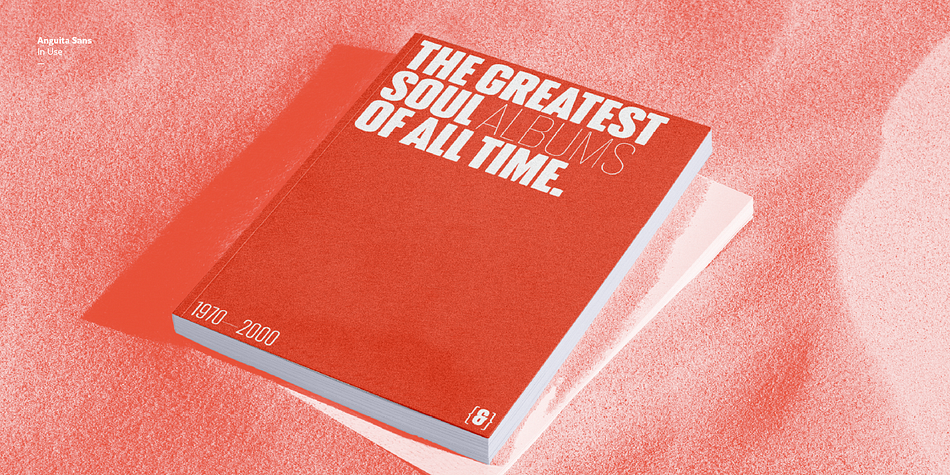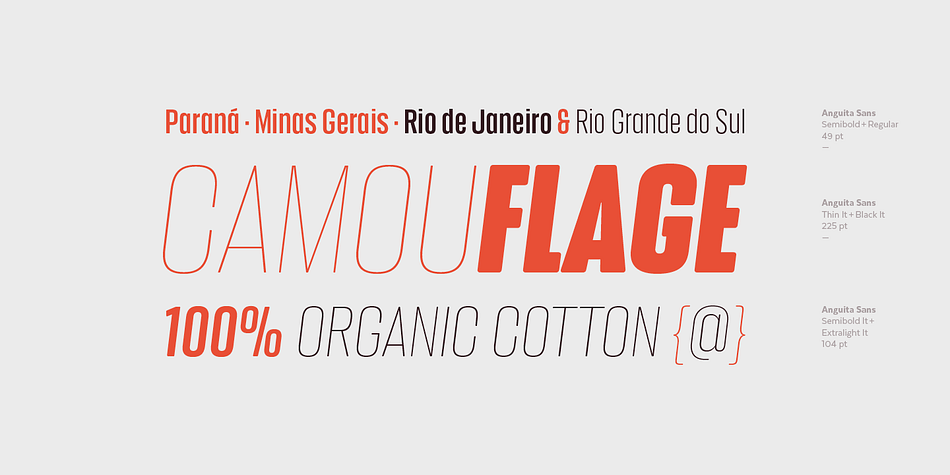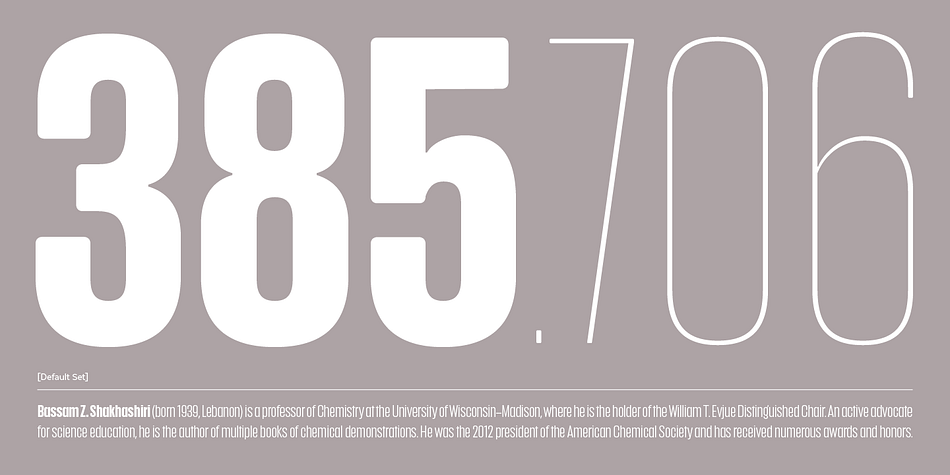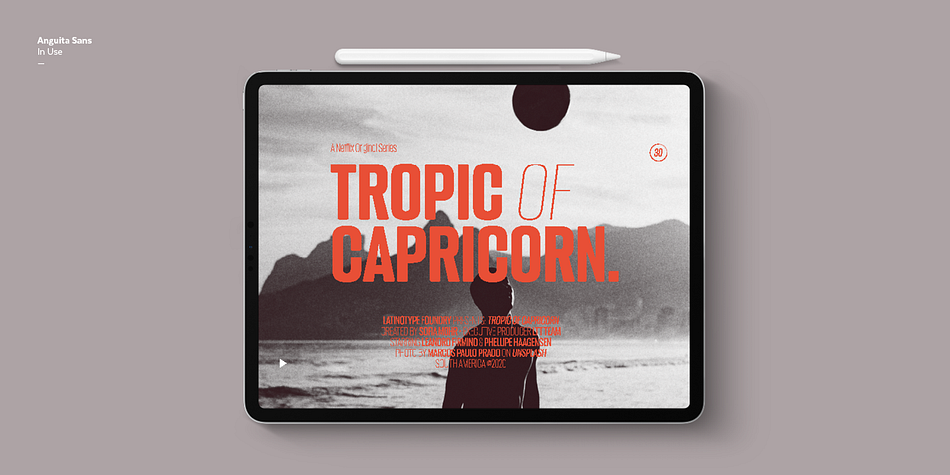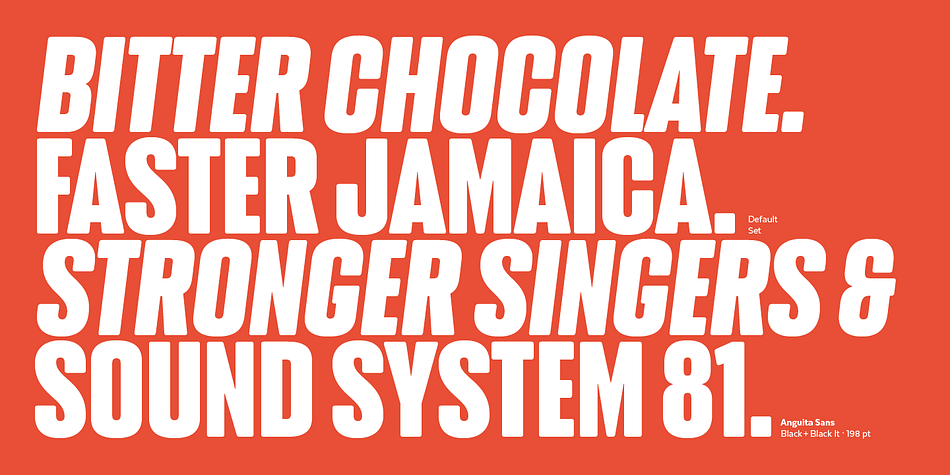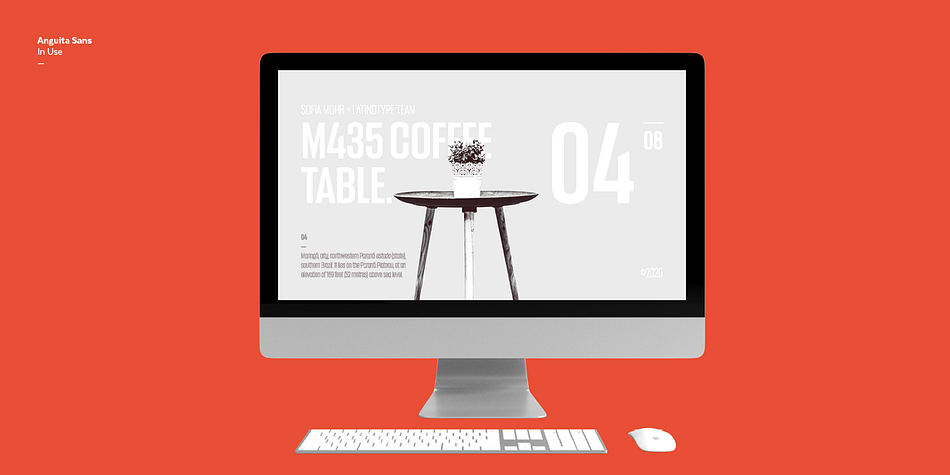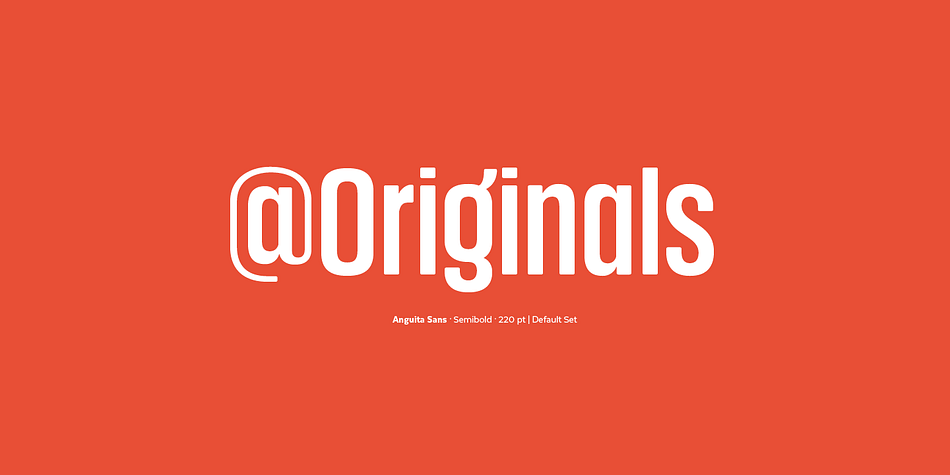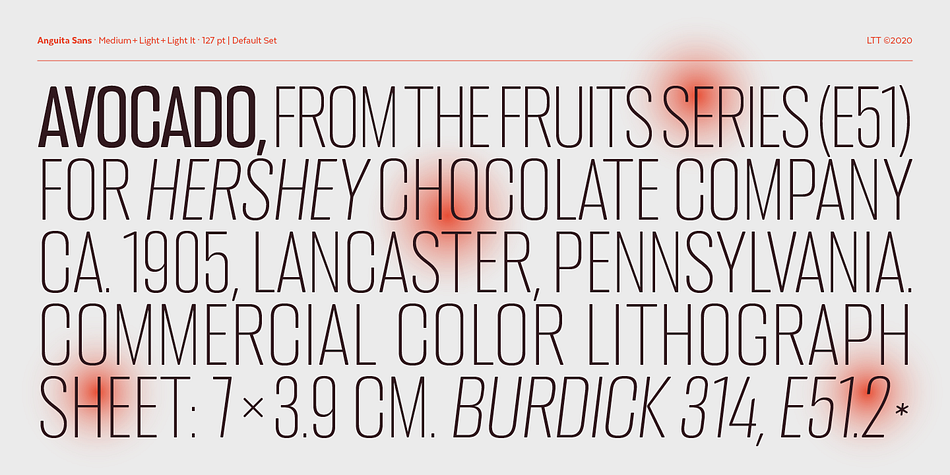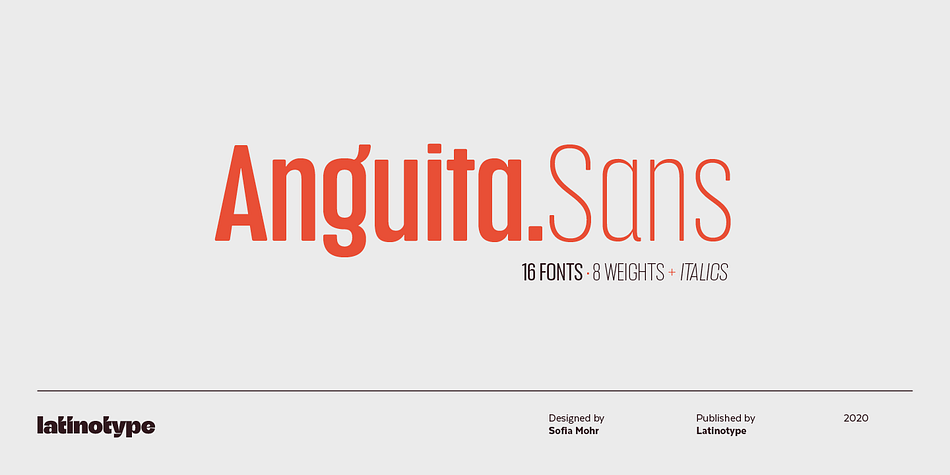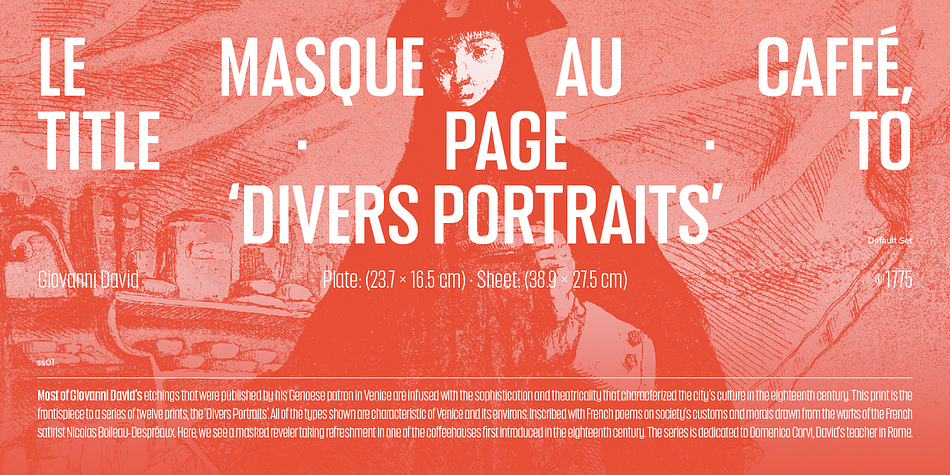
Designed by Sofia Mohr, Anguita Sans is a sans serif font family. This typeface has sixteen styles and was published by Latinotype.
Anguita Sans is a condensed sans serif font family of 8 weights with matching italics- 16 styles in all.
The font is characterized by rounded terminals, a large x-height and a condensed structure, which allows you to create a good vertical rhythm.
Anguita Sans is a stylish and versatile typeface perfectly suitable for a wide range of applications- especially titles and short lines of text, in both print and digital media.